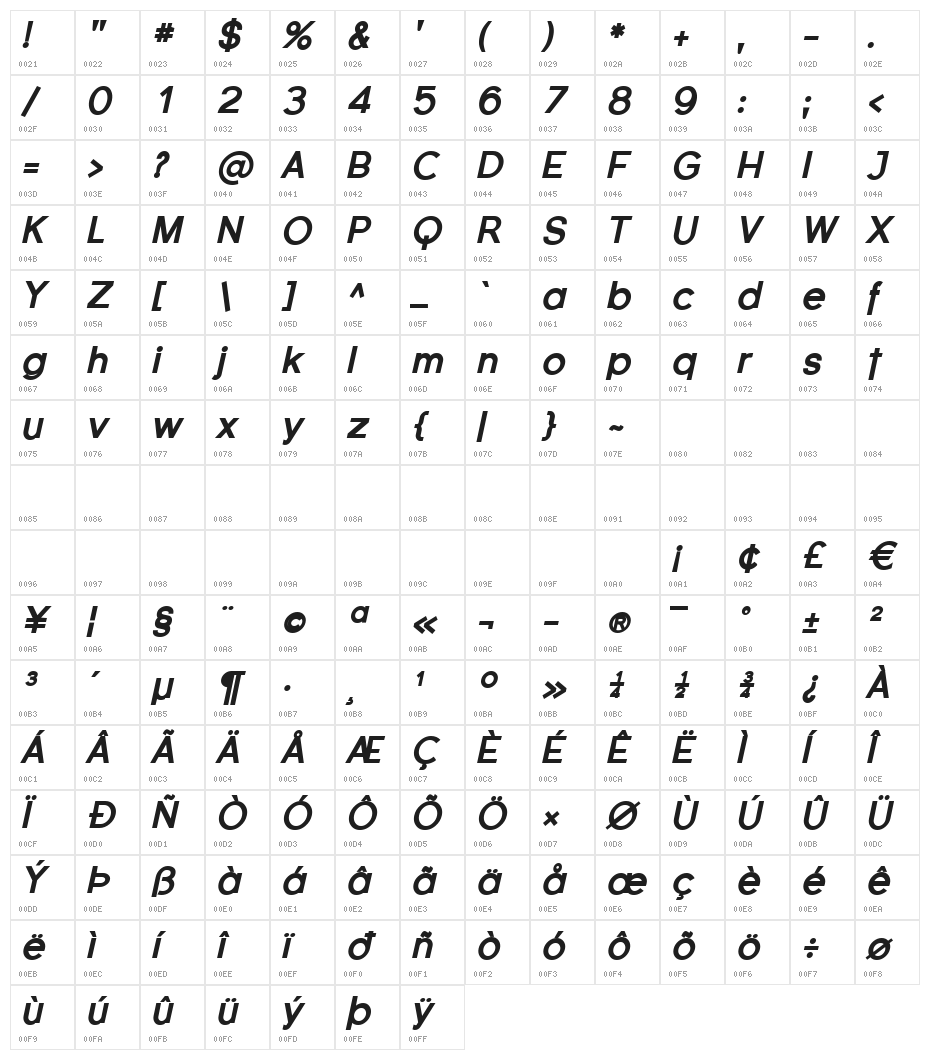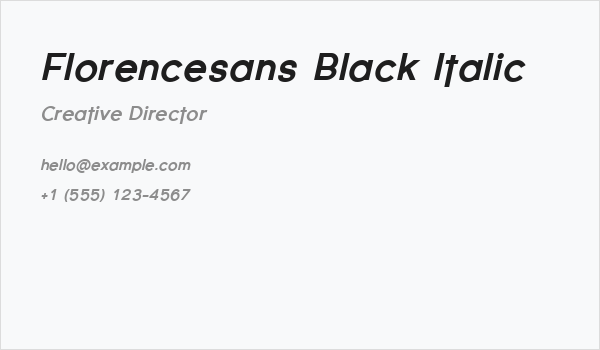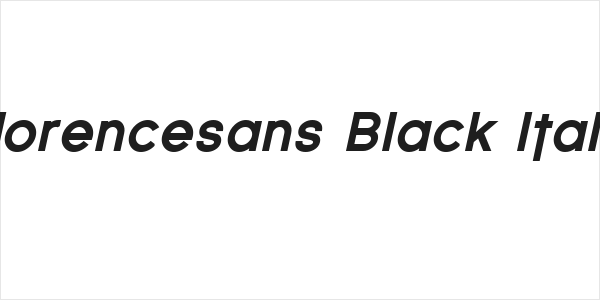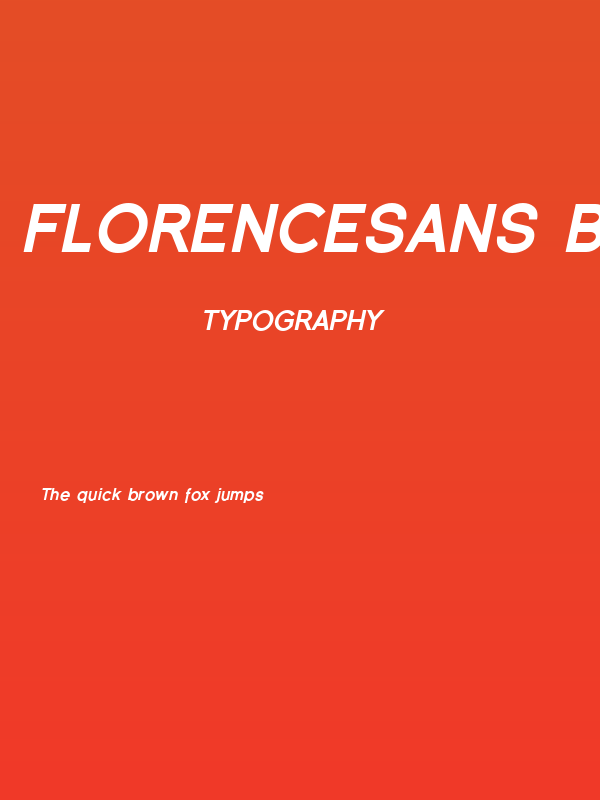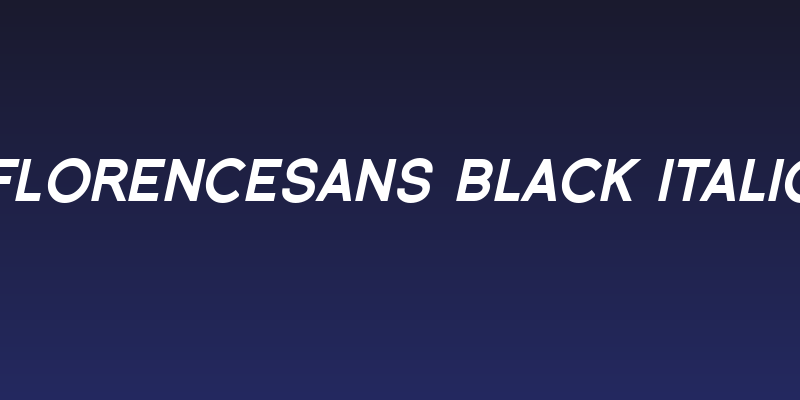
Florencesans Black Italic Font
Florencesans Black Italic Description
This font exhibits a bold and dynamic presence with its italicized form, providing a sense of motion and energy. The characters are well-defined with a consistent stroke width, contributing to its robust appearance. The sans-serif style ensures a clean and modern look, making it versatile for various design applications. The uppercase and lowercase letters maintain a uniform height, enhancing readability. The numerals are clear and distinct, while the special characters are crafted to match the overall aesthetic. The font's bold weight and italic slant make it ideal for attention-grabbing headlines and impactful statements.
| Proposed Projects | Ideal for branding, advertising, headlines, and modern web design projects. |